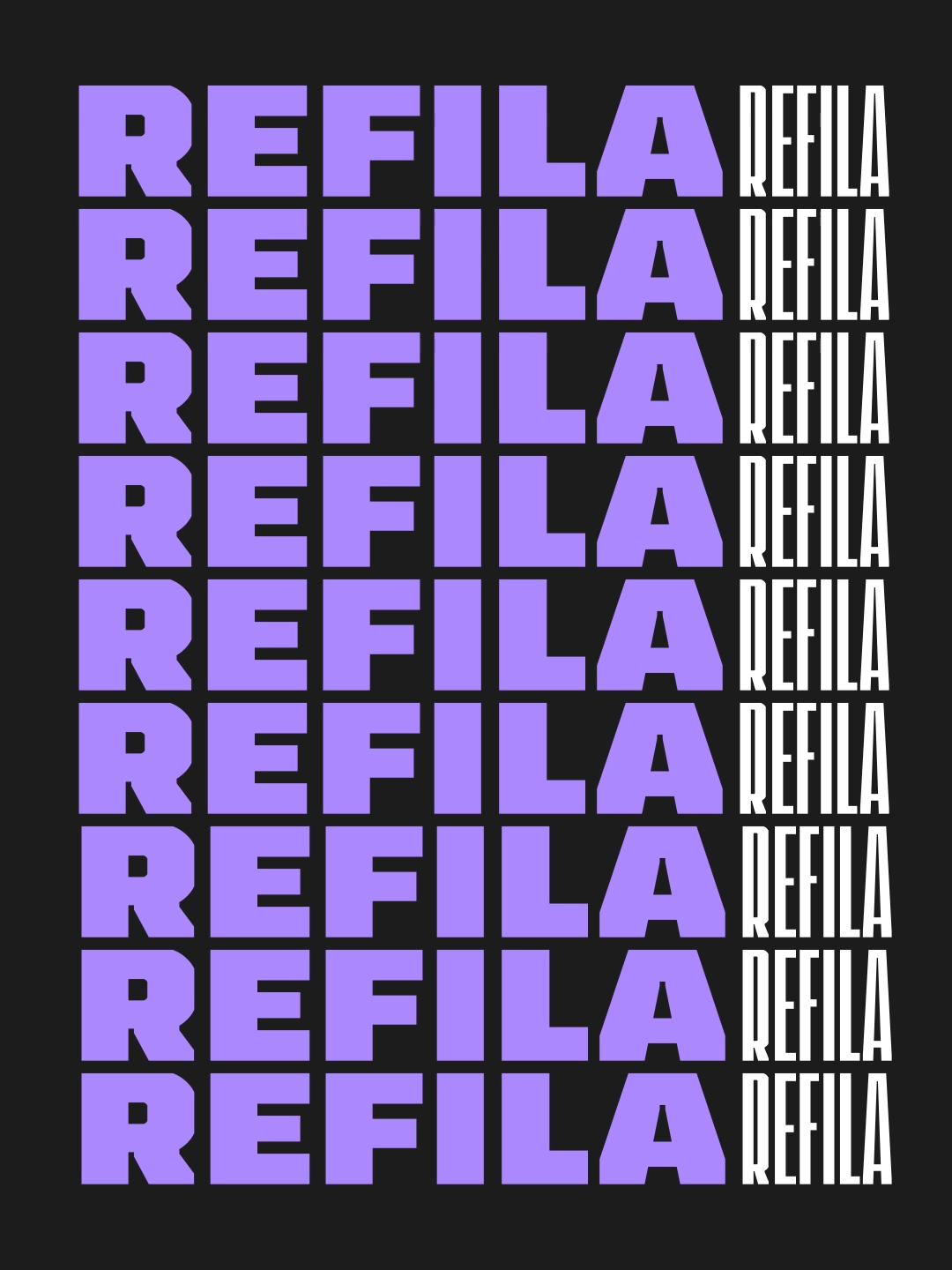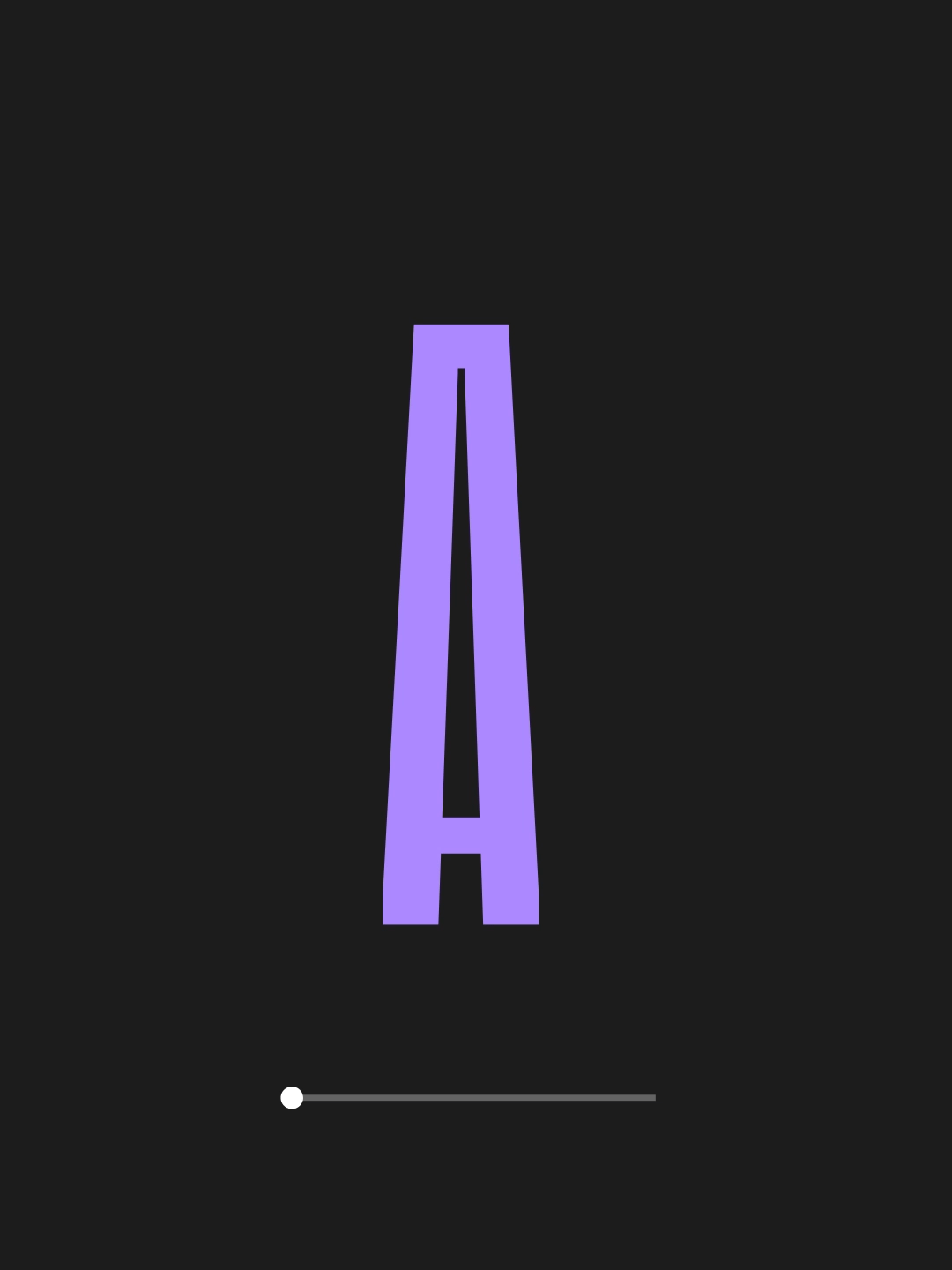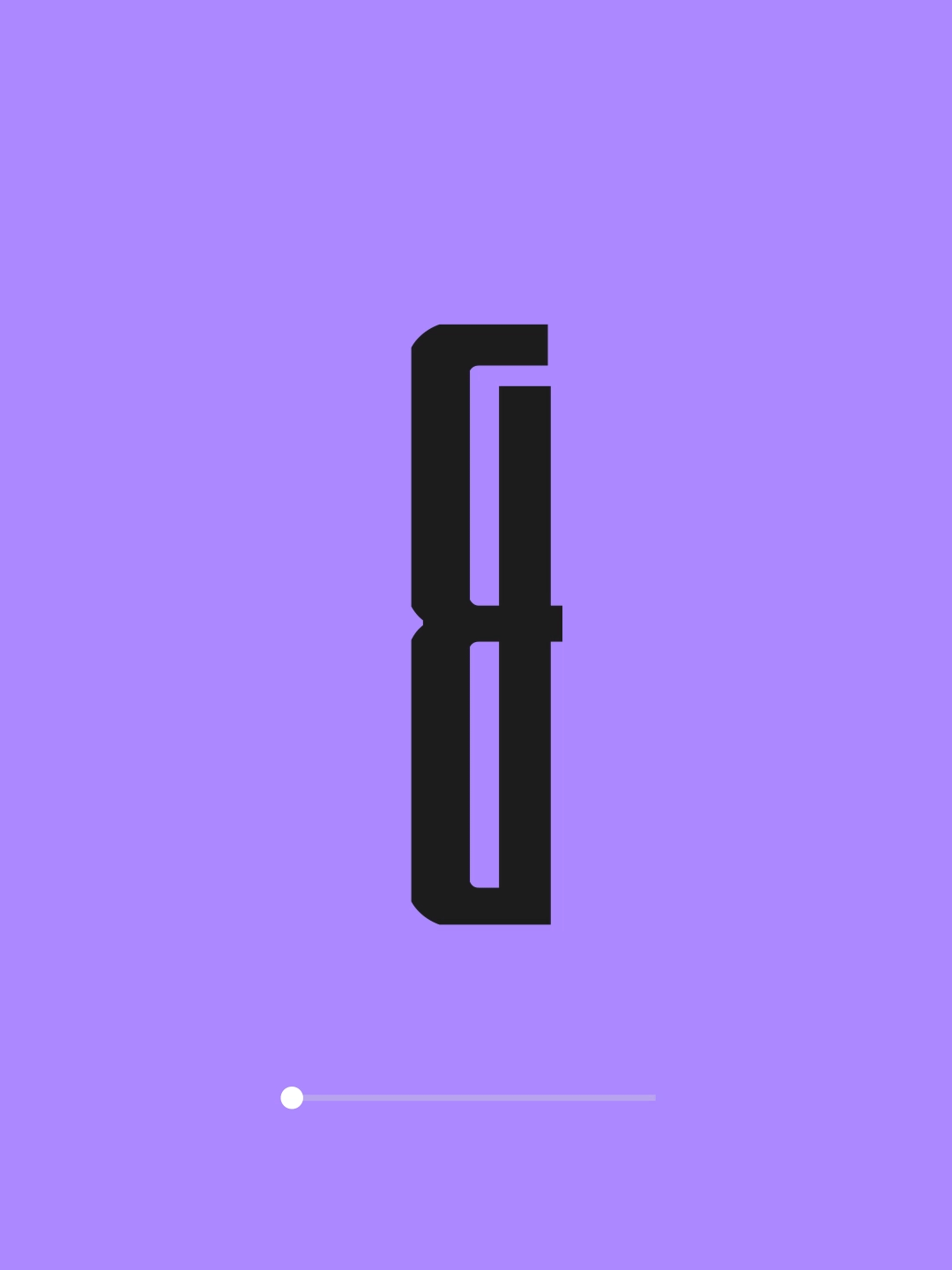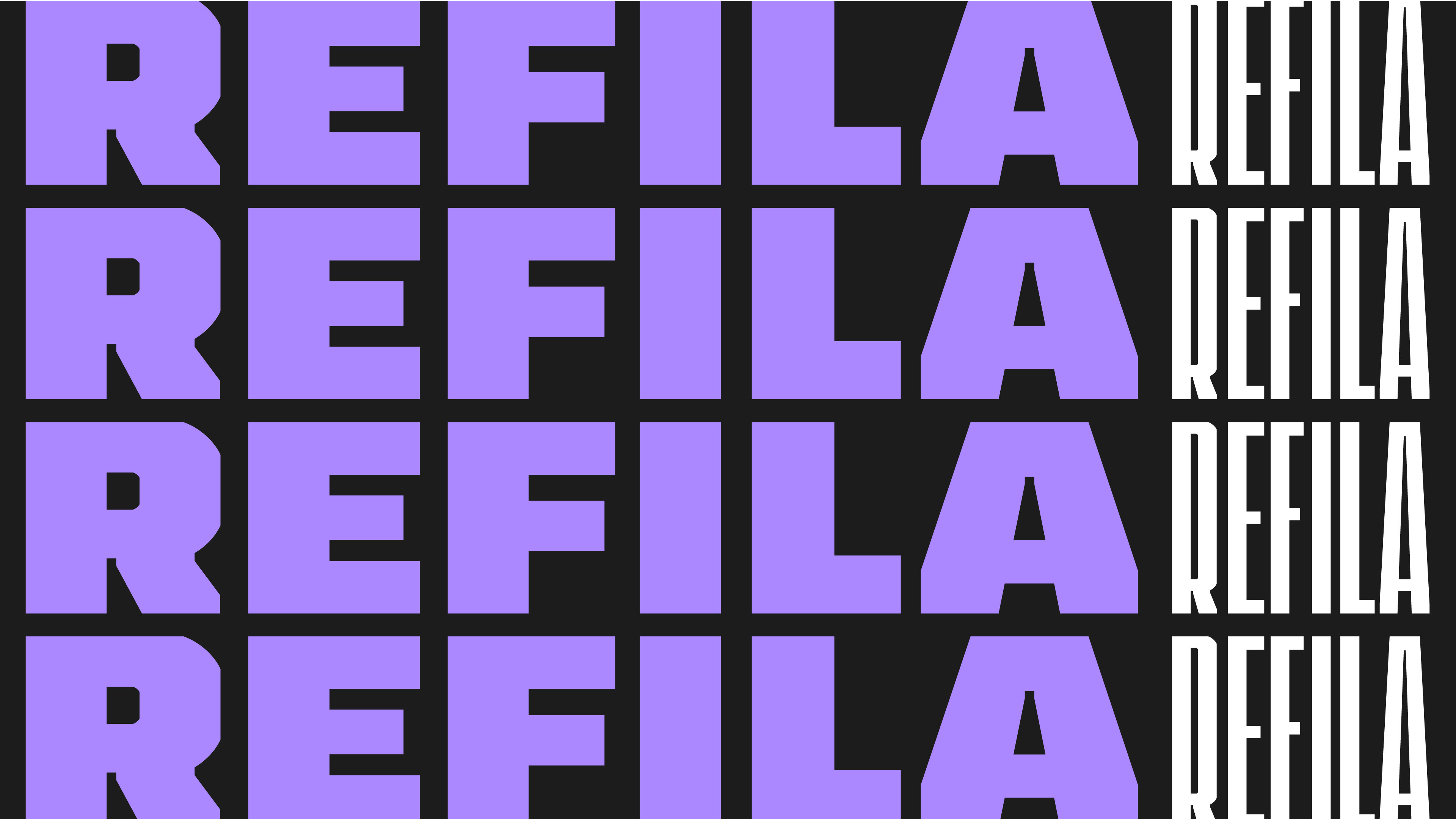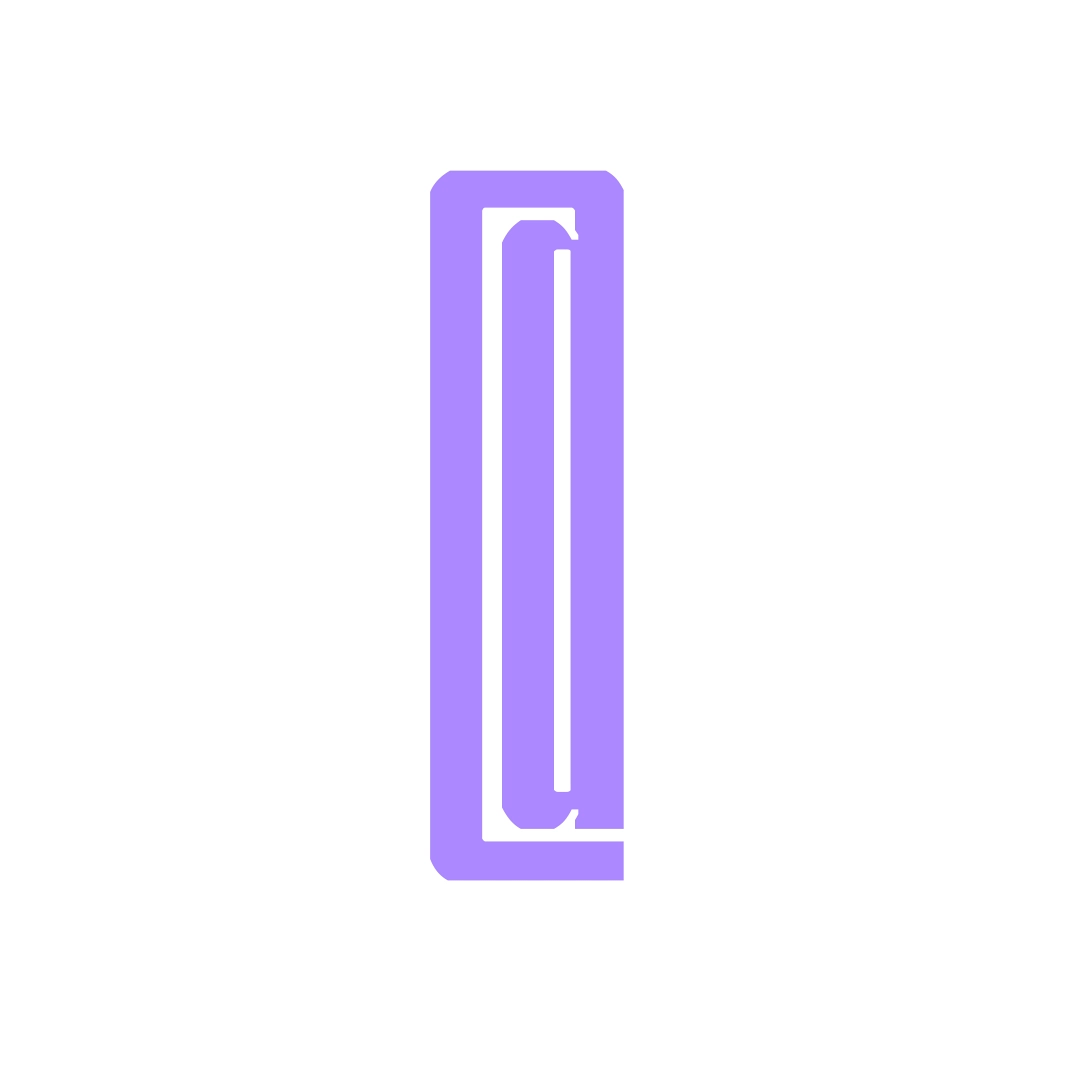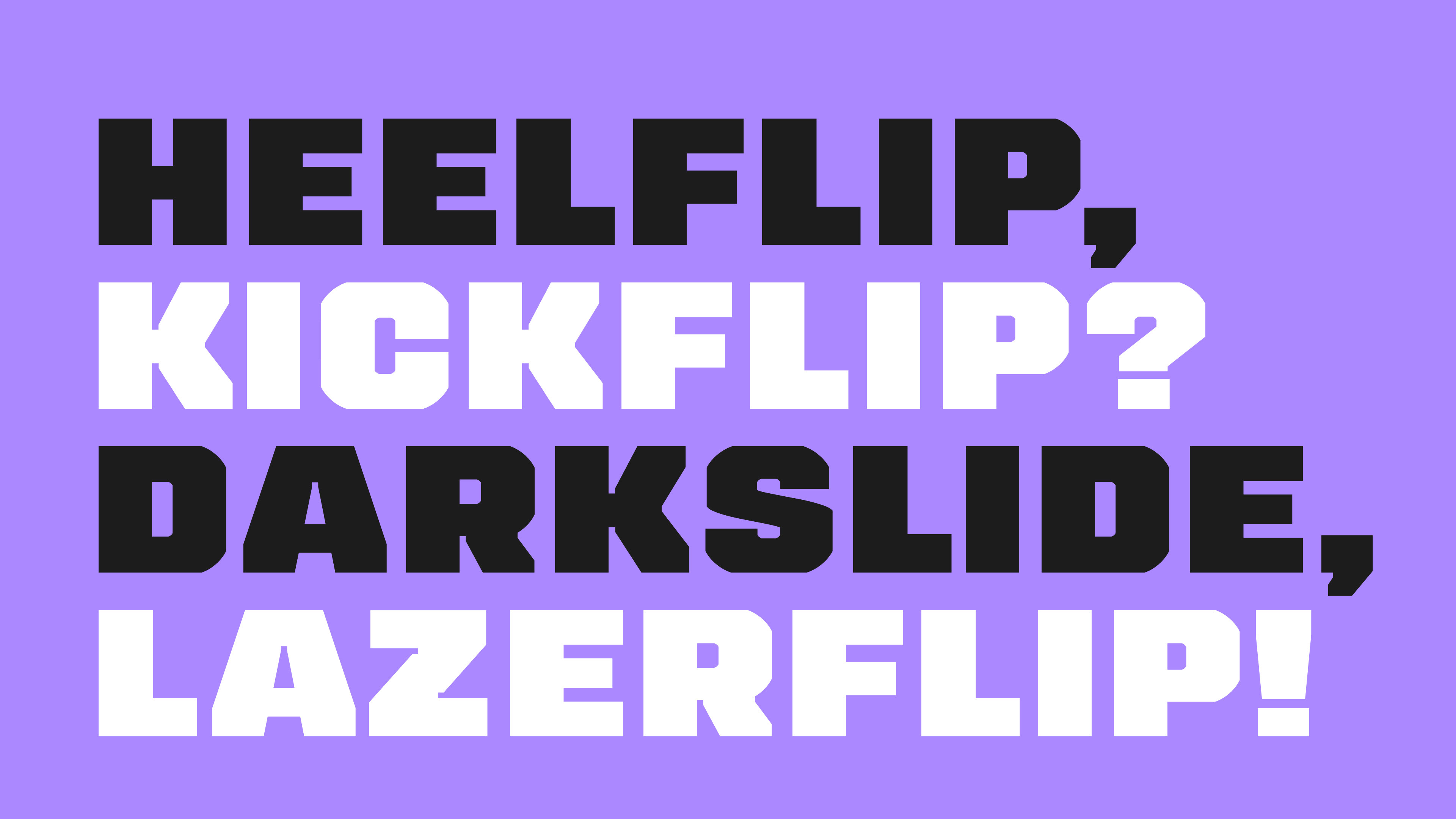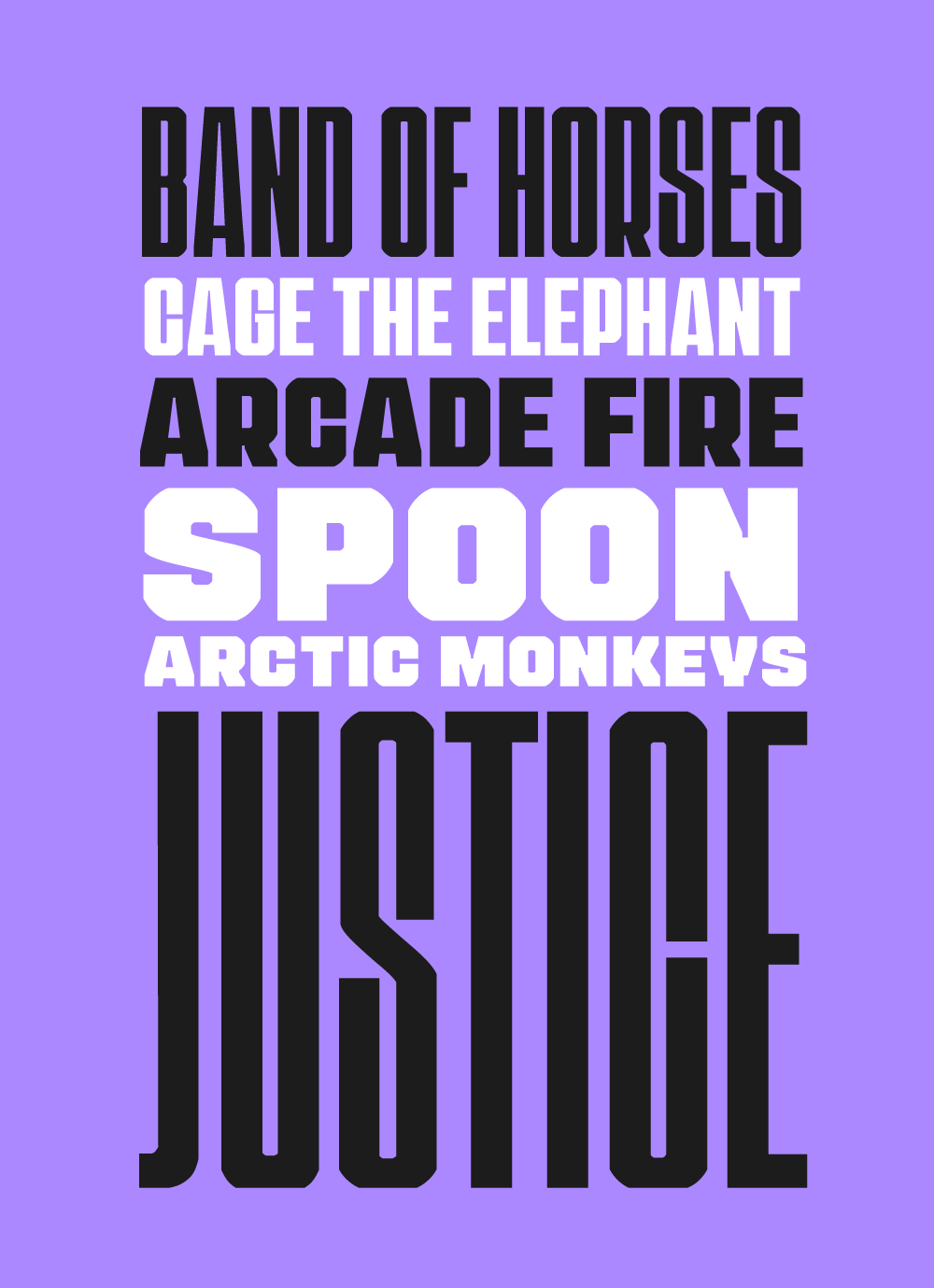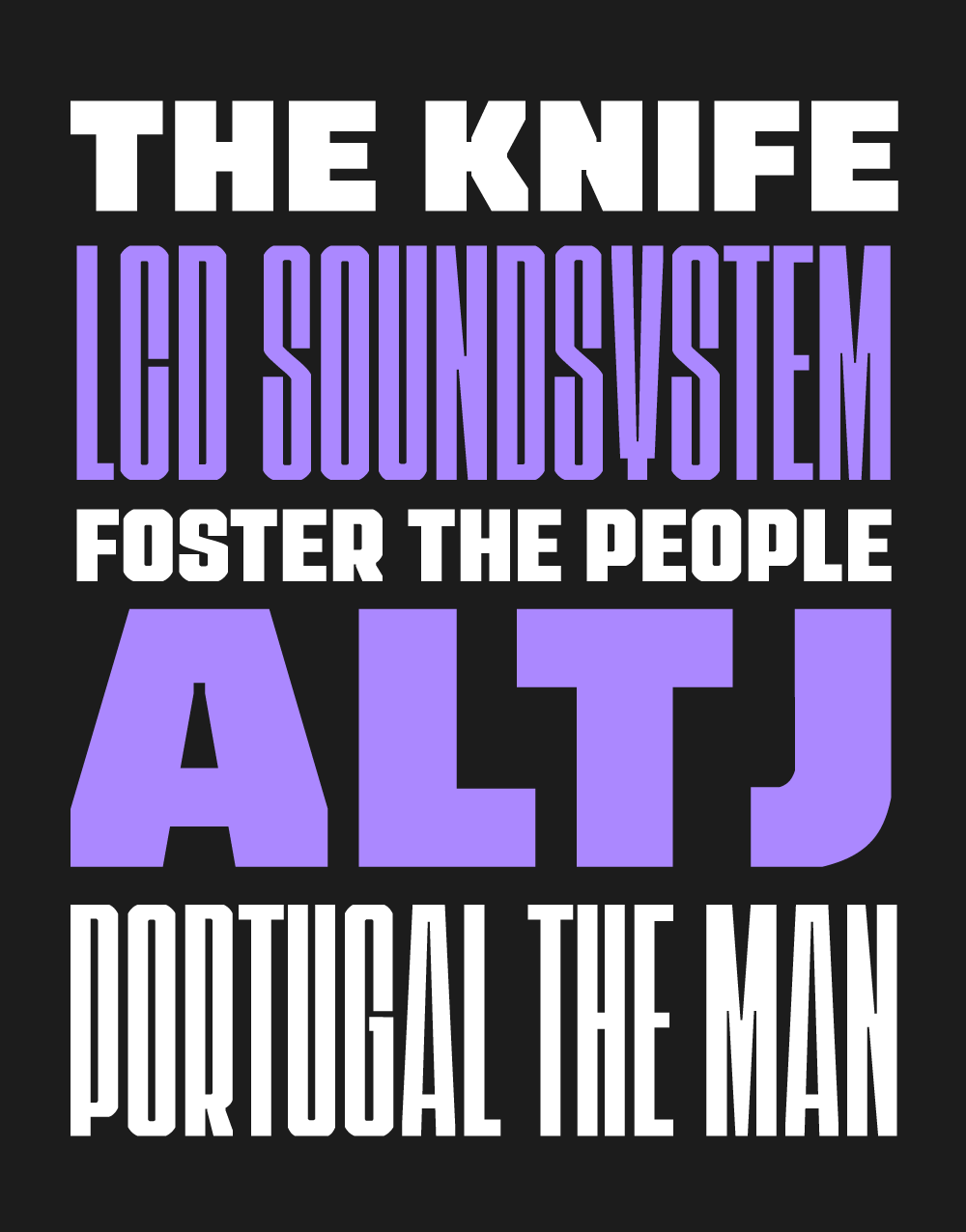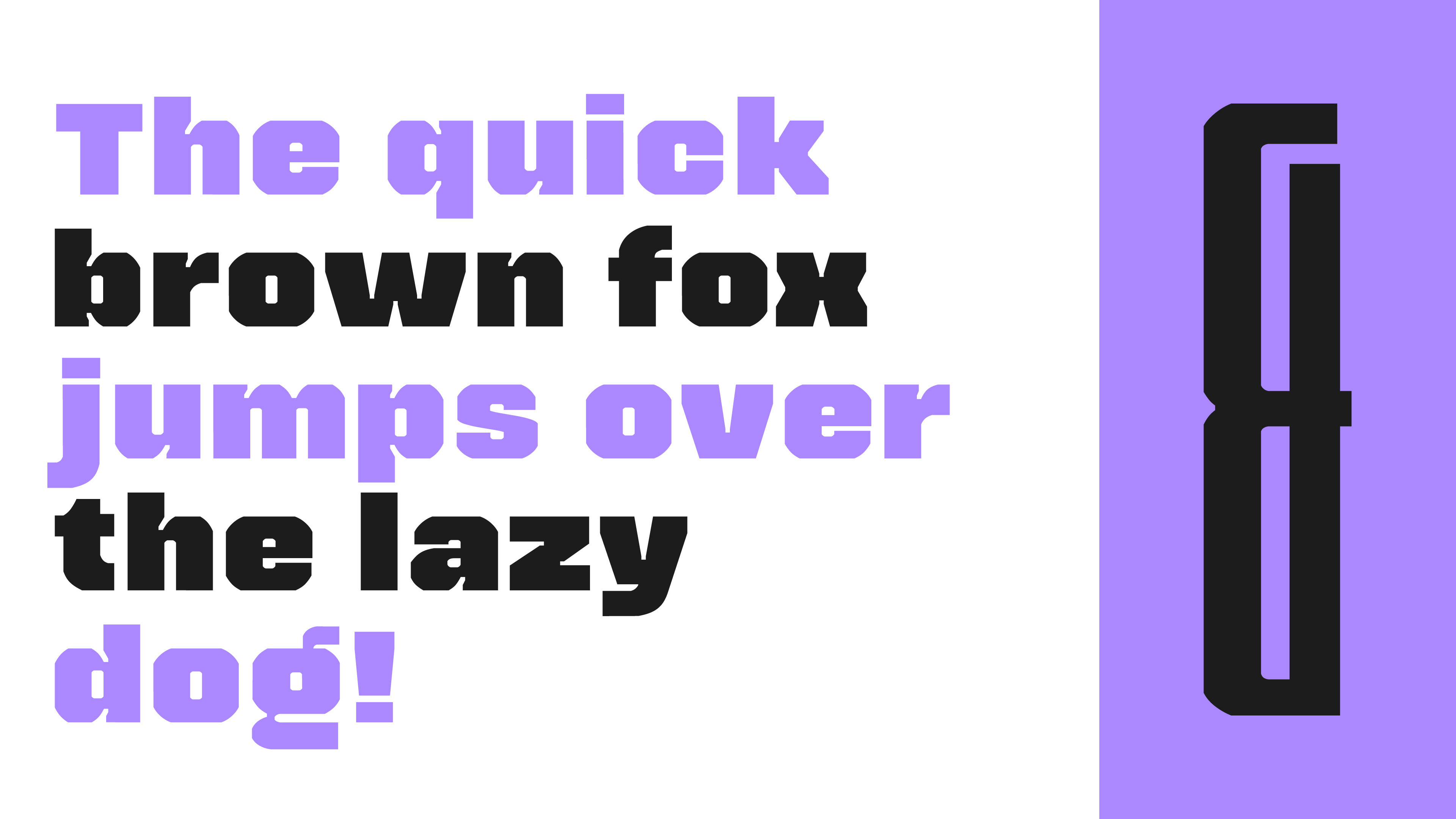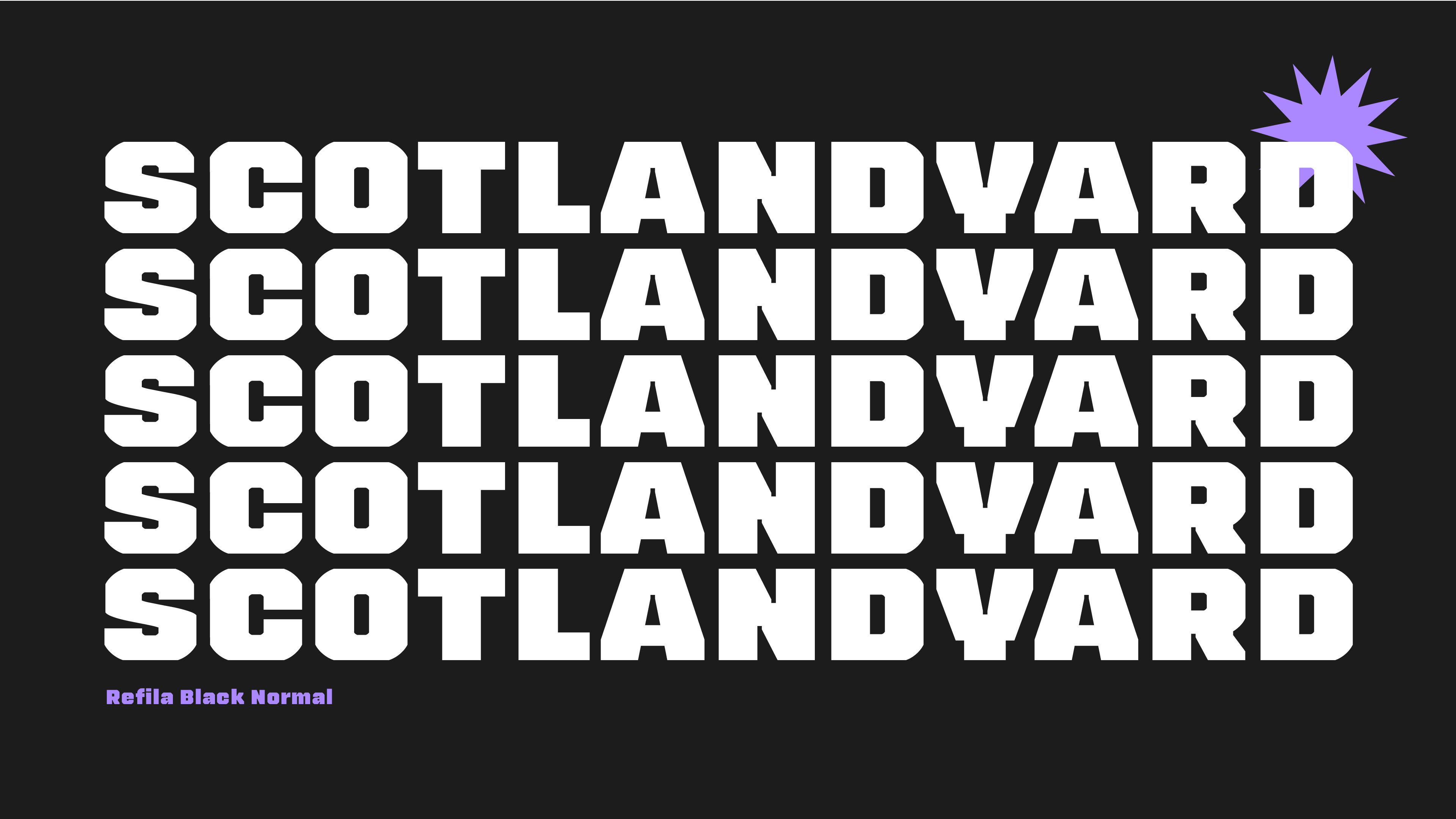
Refila is a high-impact display typeface designed for applications where form and presence take the lead. Its construction is based on a system of horizontal and vertical cuts, as if each character had been trimmed, creating a precise, modular, and contemporary visual rhythm.
The family features two primary width styles, a normal and a hyper condensed version, allowing for expressive variation within a unified system. As a variable font, Refila provides continuous control over width, expanding compositional possibilities while preserving structural consistency.
Its bold and geometric character makes it especially suitable for posters, packaging, and impactful headlines, where legibility and personality must coexist with strong visual presence.